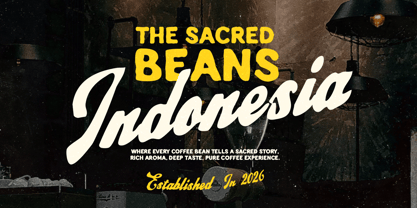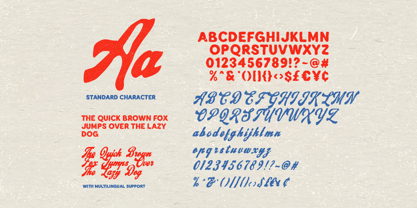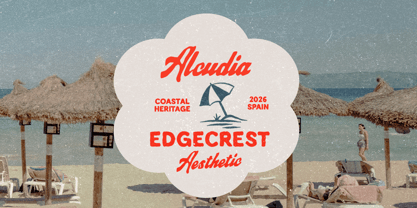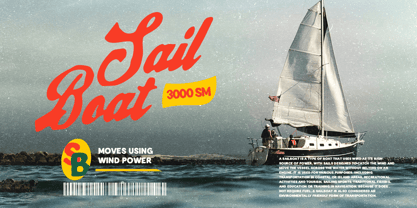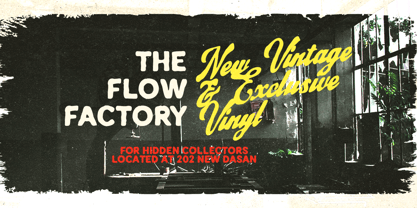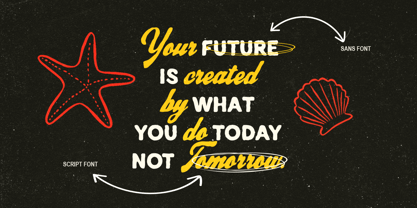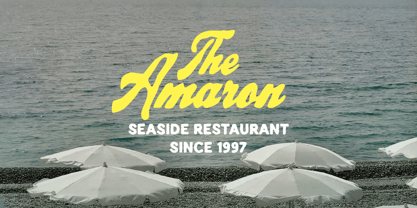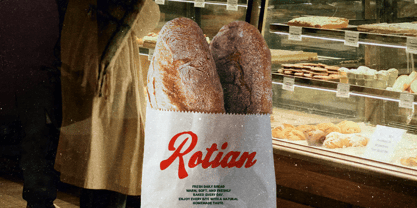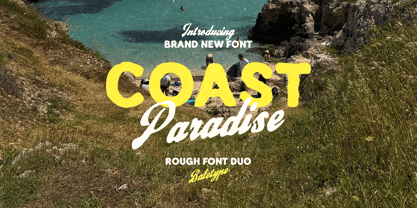
Coast Paradise
by Bale Type
The Coast Paradise Font Family was designed by Dzikrul Aulia and published by Bale Type. Coast Paradise contains 2 styles and family package options. More about this family
Introducing Coast Paradise, a rugged hand-drawn font duo inspired by outdoor adventures and the summer beach vacation. Featuring a sans serif paired with a flowing italic script, this versatile combination is designed to complement each other perfectly, creating effortless and eye-catching typography. With its authentic handcrafted texture, Coast Paradise is ideal for posters, outdoor-themed projects, greeting cards, branding, logotypes, packaging, quotes, apparel, and any design that calls for a natural, handmade touch. Plus Coast Paradise includes multilingual support, making it a versatile choice for designers around the world.
Designers: Dzikrul Aulia
Foundry: Bale Type